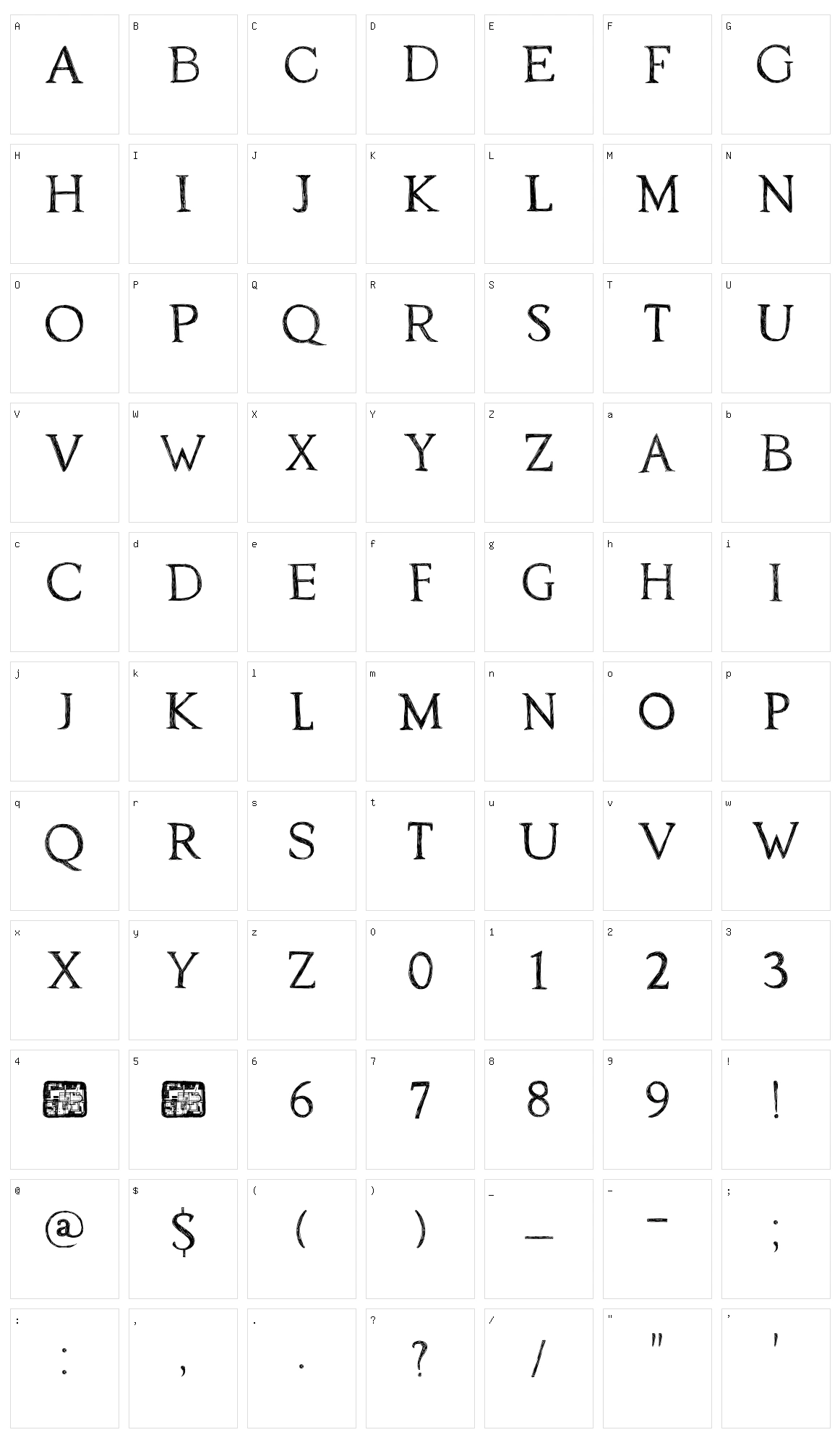
The free font DK Traiectum is carefully designed by Hanoded, showcasing a thoughtful balance of creativity and usability and falls under the Eroded font style. When you download the ZIP file, it contains only 1693.18 KB of font files, making it lightweight and quick to download. Please review the license details below to understand permitted usage and distribution rights. If license information is not available, we recommend using this font for personal projects only or contacting the author directly for commercial usage permissions.